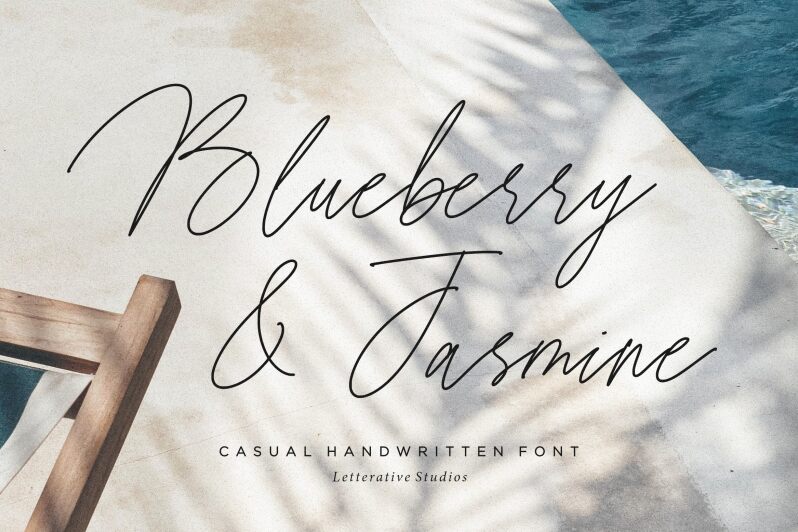
Blueberry & Jasmine
Blueberry & Jasmine font by Letterative Studio blends sophistication and an artistic flair with a light, flowing signature style. This elegant handwritten font features contemporary beauty, refined curves, and added unique aesthetics to its forms. Its dynamic character perfectly complements modern-day designs that evoke warmth as well as playfulness.
This free handwritten font goes well with wedding invitations, greeting cards, posters, banners, product package design, logo designs for boutique stores or fashion brands, and impactful social media graphics. Add refined yet artistic handwriting to book covers or marketing materials for innovative audiences across the globe.